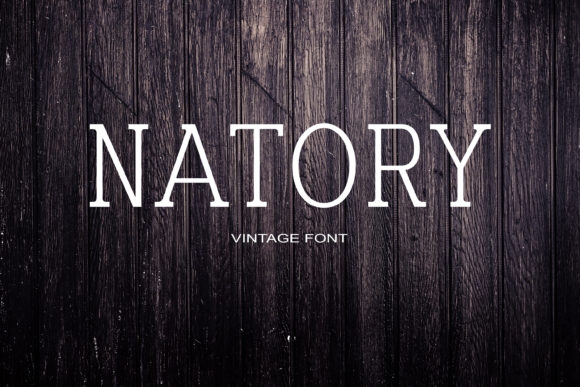
**Introducing Natory: The Serif Font That Will Make Your Designs Pop!**
Attention all design enthusiasts! Are you ready to elevate your creative projects to new heights? Look no further than Natory, the serif font that will add a touch of sophistication and style to all your designs.
Natory is a modern and contemporary serif font, meticulously crafted by the talented designers at DmDesignsStoreArt. Its clean lines and sharp edges give it a distinctive and eye-catching look that is sure to make a statement in any design context.
Whether you're working on branding materials, website designs, or social media posts, Natory will effortlessly elevate the visual appeal of your creations. Its versatility knows no bounds, making it the perfect choice for a wide range of projects.
Natory's carefully balanced letterforms create a sense of harmony and visual flow that draws the eye in and captivates the reader. Each character has been meticulously designed to ensure optimal readability and impact, making it an ideal choice for both print and digital applications.
But Natory is more than just a pretty face. It's a font that evokes emotion and sparks creativity. Its unique character and charm will add a touch of personality and warmth to your designs, making them truly unforgettable.
Imagine your branding materials standing out from the crowd with Natory's bold and distinctive presence. Picture your website designs capturing the attention of visitors with Natory's sophisticated and inviting style. Envision your social media posts turning heads and generating engagement with Natory's eye-catching appeal.
With Natory, the possibilities are endless. Let your imagination soar and create designs that will leave a lasting impression. Don't settle for ordinary fonts; embrace the extraordinary with Natory today!